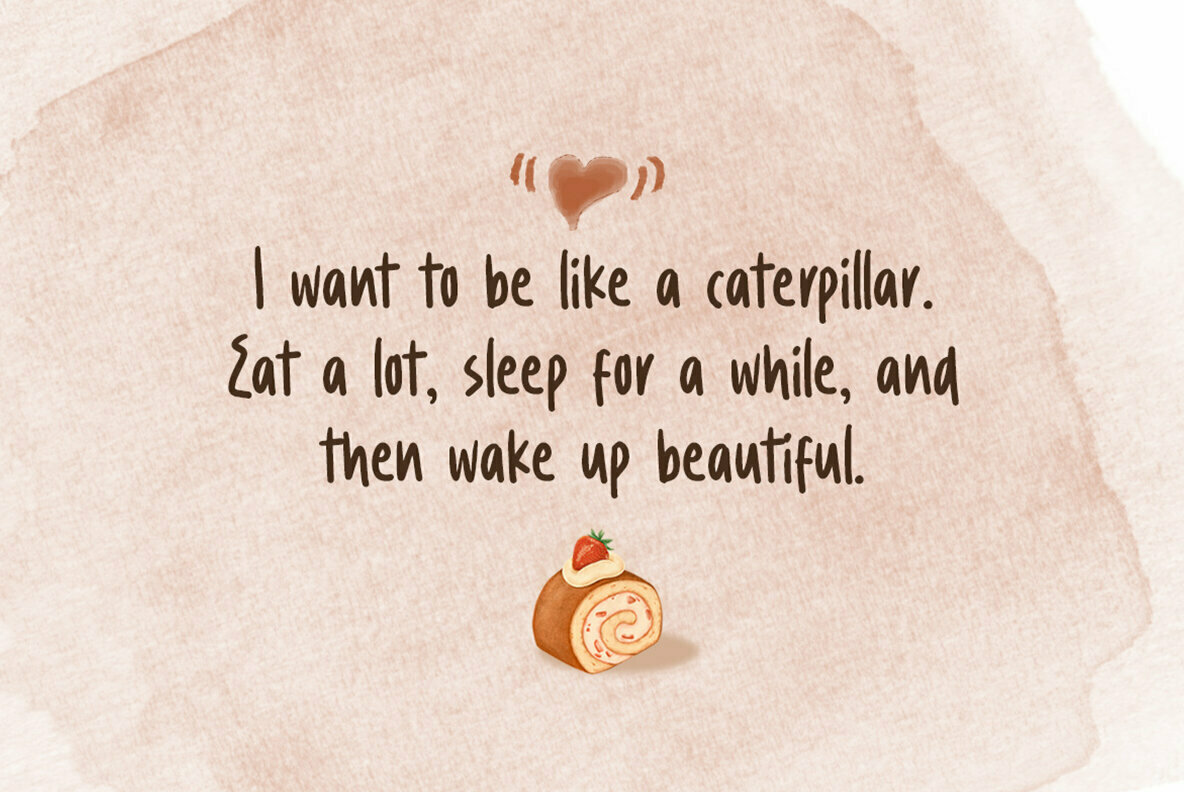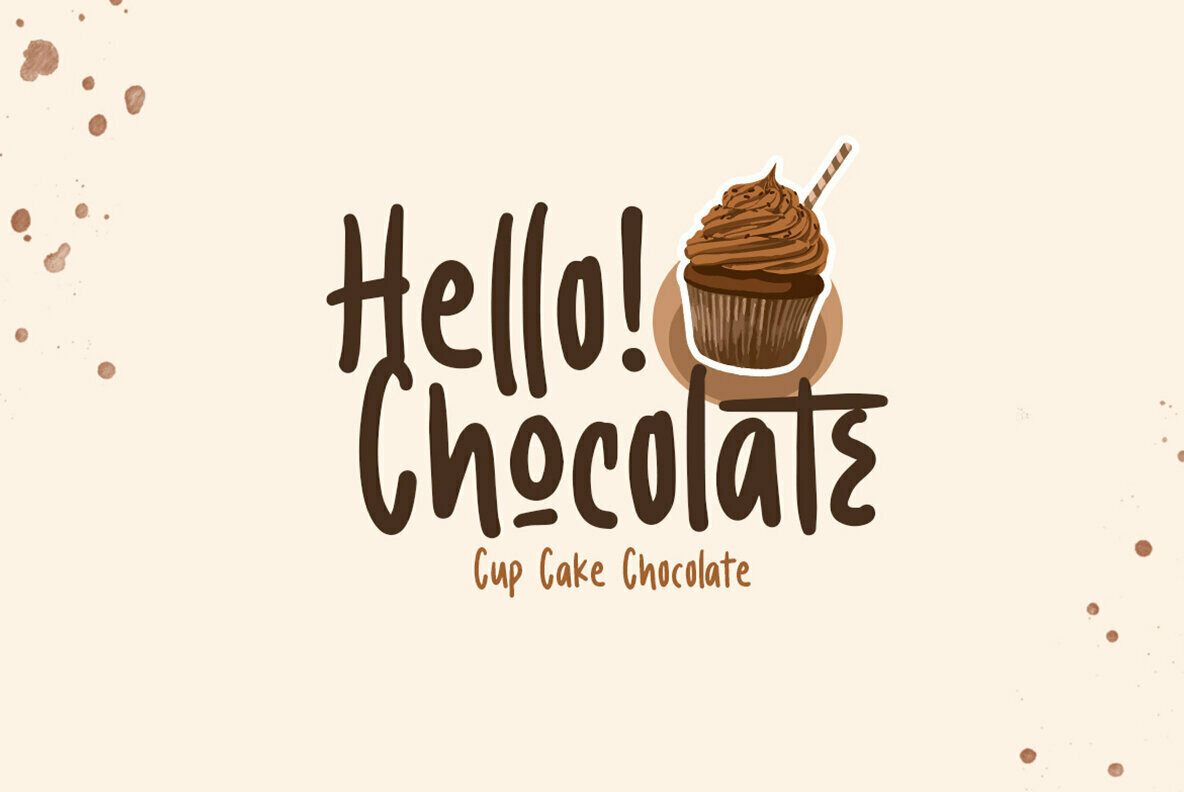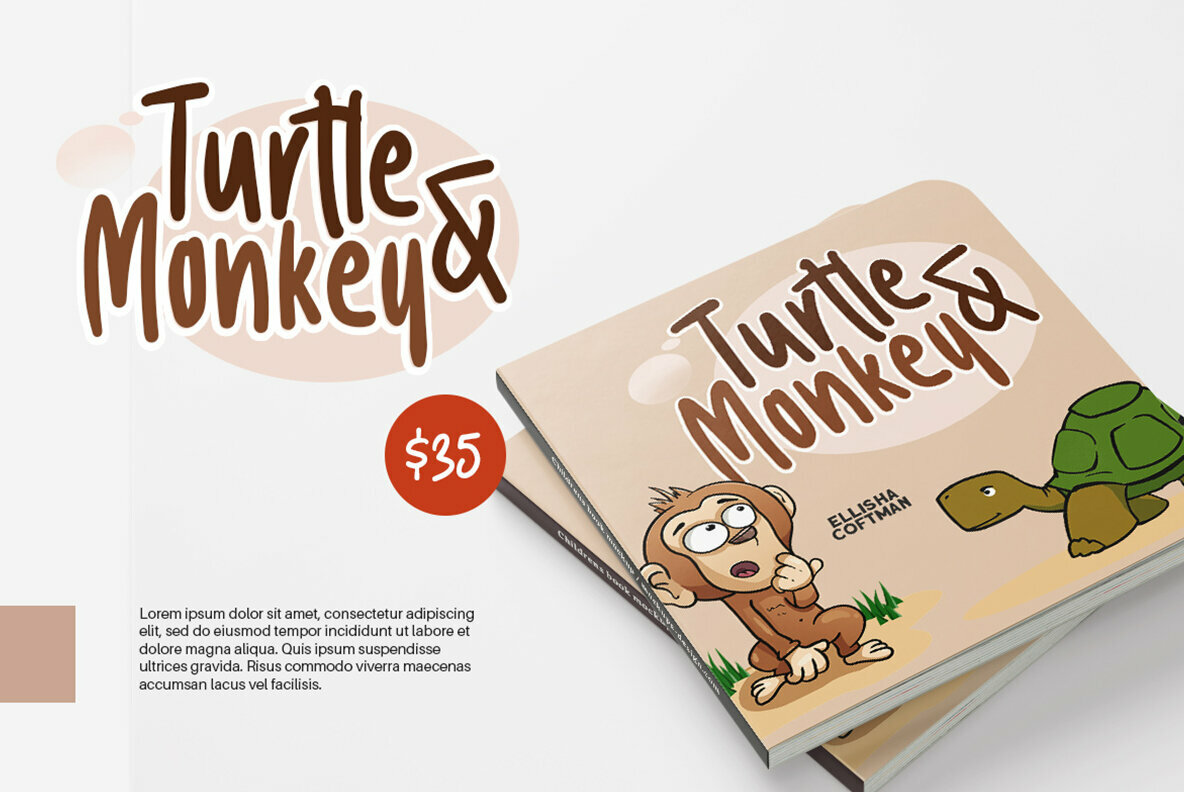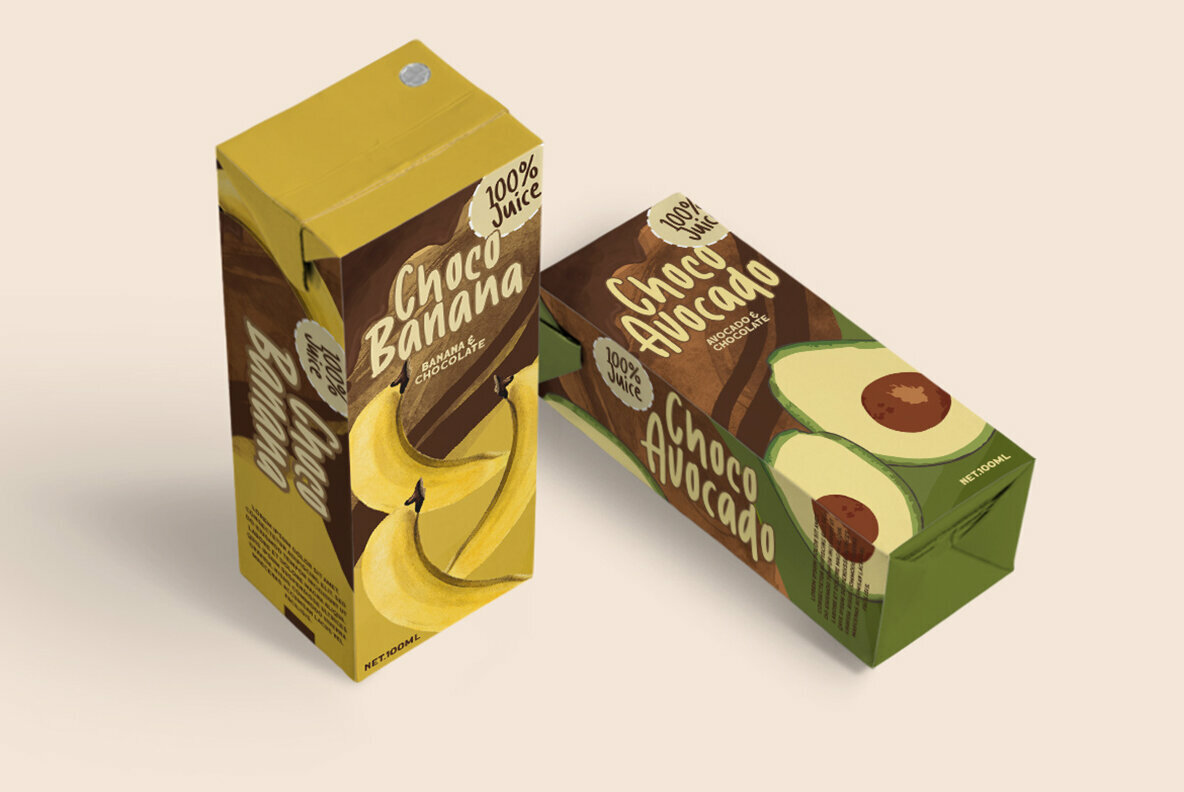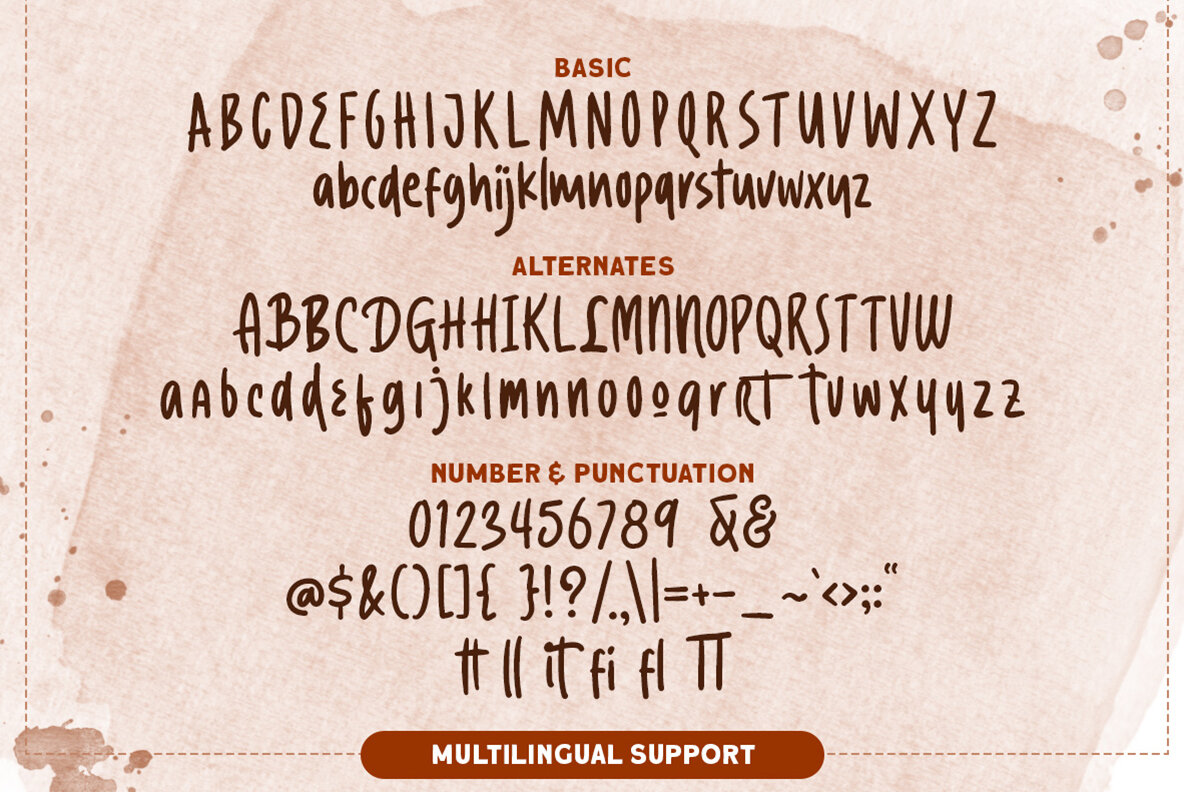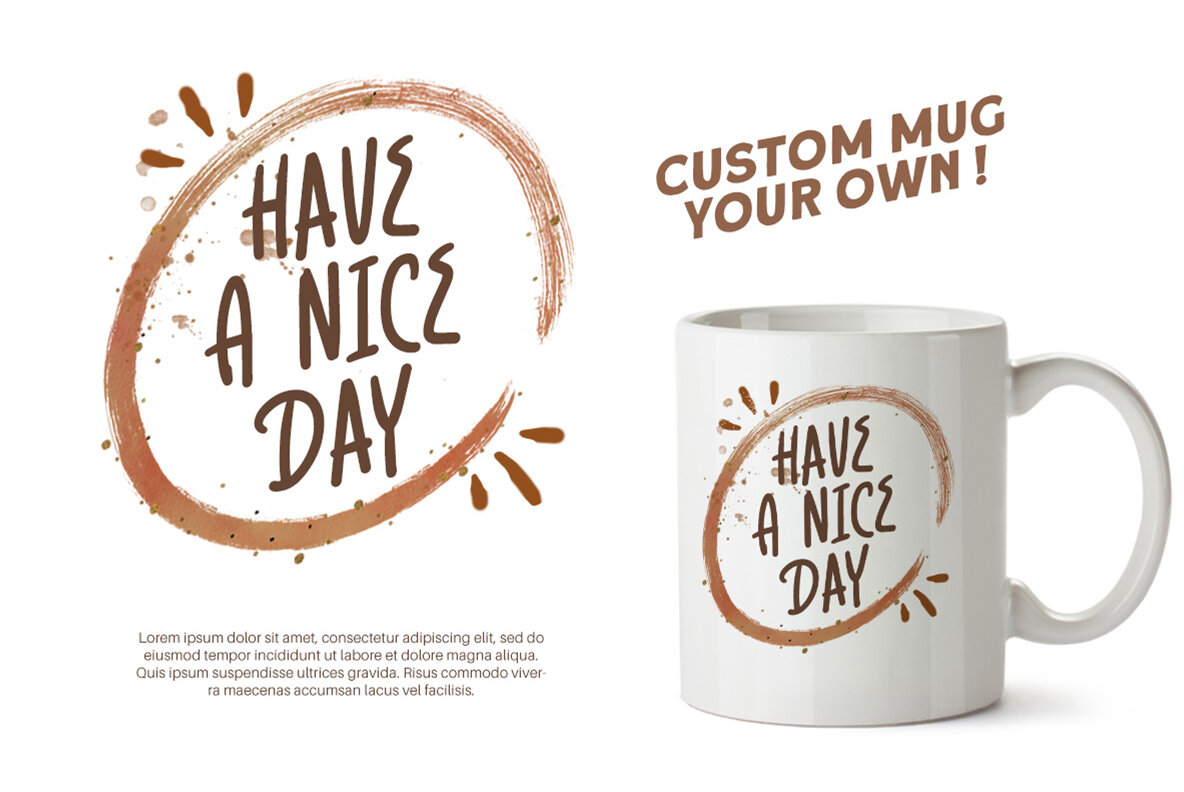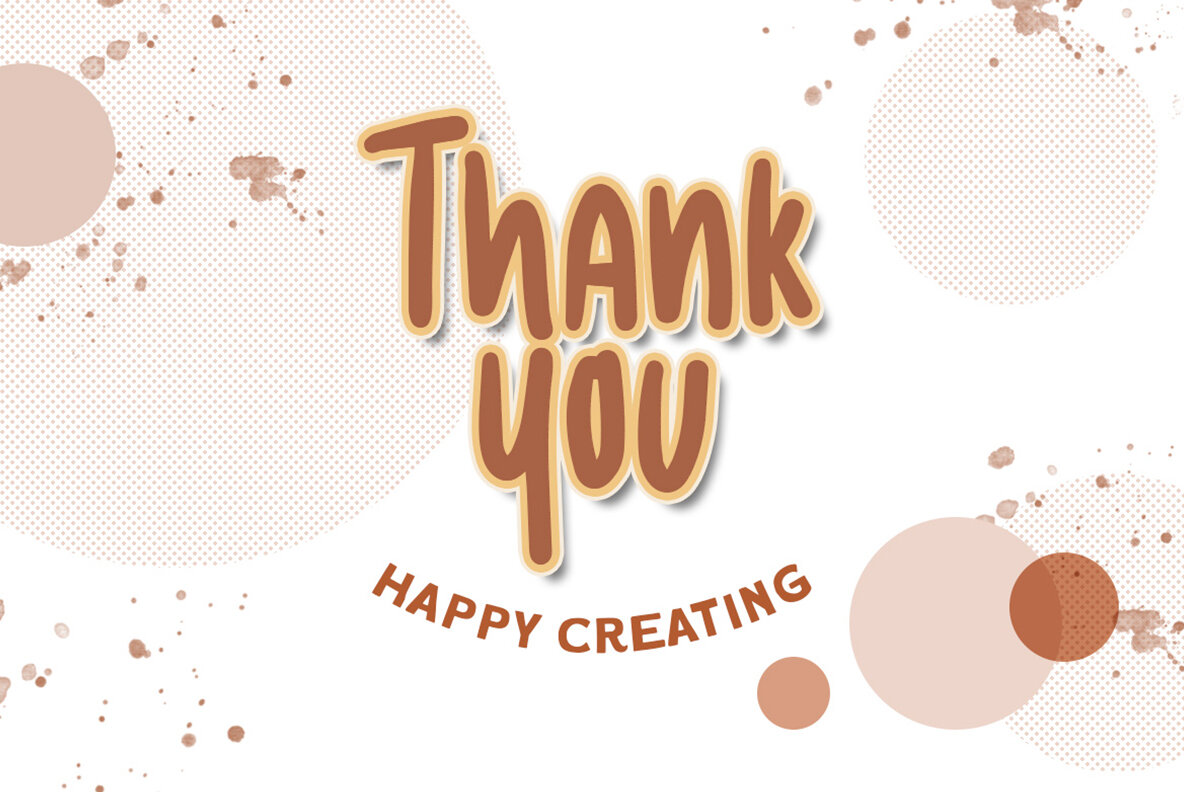
Caramel Chestnut Font
Caramel Chestnut Regular
Caramel Chestnut by Letterhend Studio offers a delightful blend of crafted precision and organic style. This display font is ideally suited for branding, packaging, headlines, and titles, ensuring your designs speak with both clarity and character. Its versatility makes it a wonderful choice for a range of creative projects. For full functionality, it's advisable to use a program supporting OpenType features and Glyphs panels, such as Adobe apps and Corel Draw, to explore the font's extensive capabilities.Caramel Chestnut: Organic Display Font with a Unique Touch